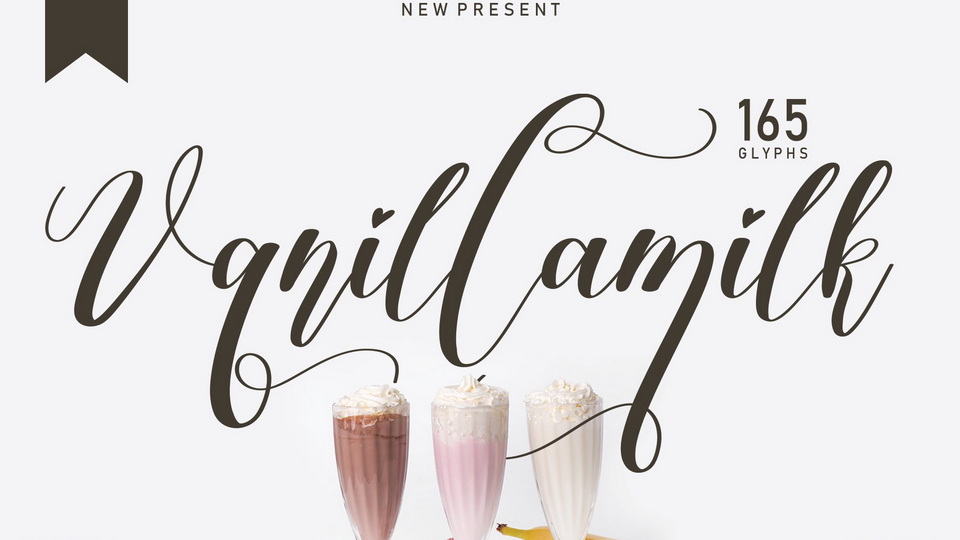
Download Vanillamilk font, a lovely dancing handwritten script made of beautiful, creative strokes. Vanillamilk font is perfect for your creative ideas, both formal and informal.